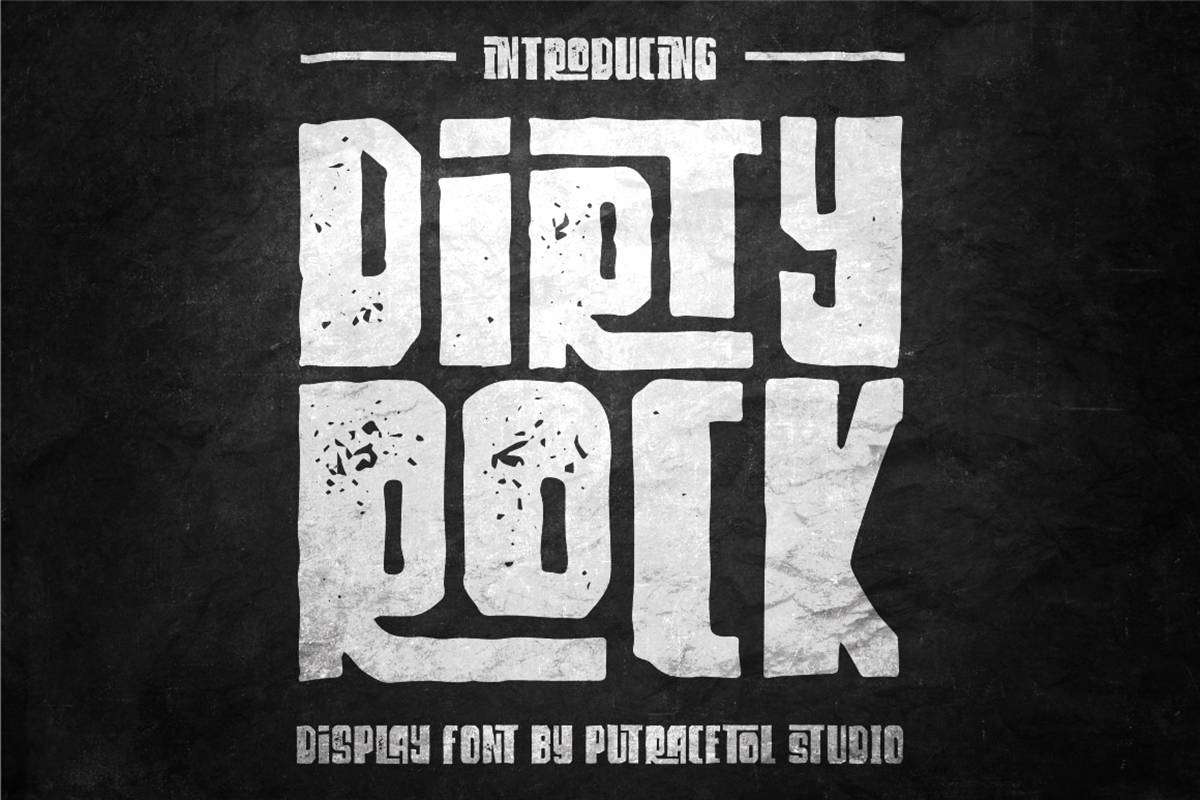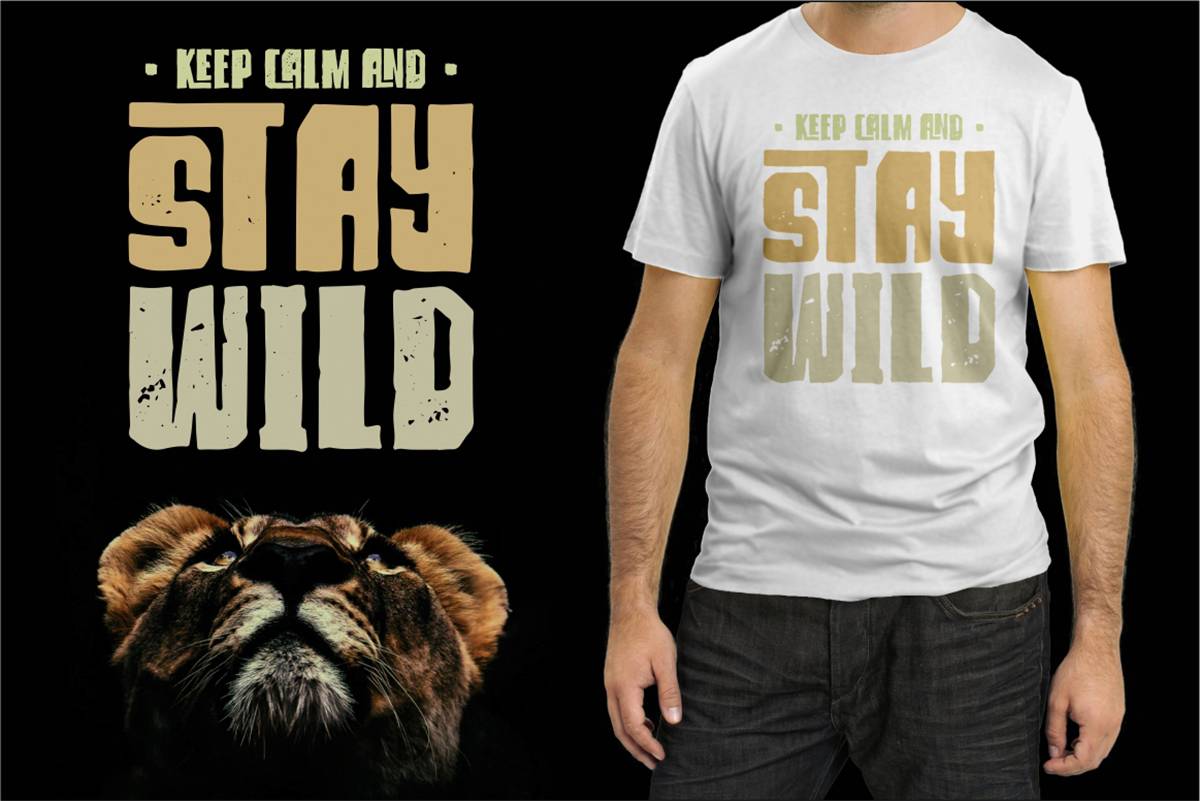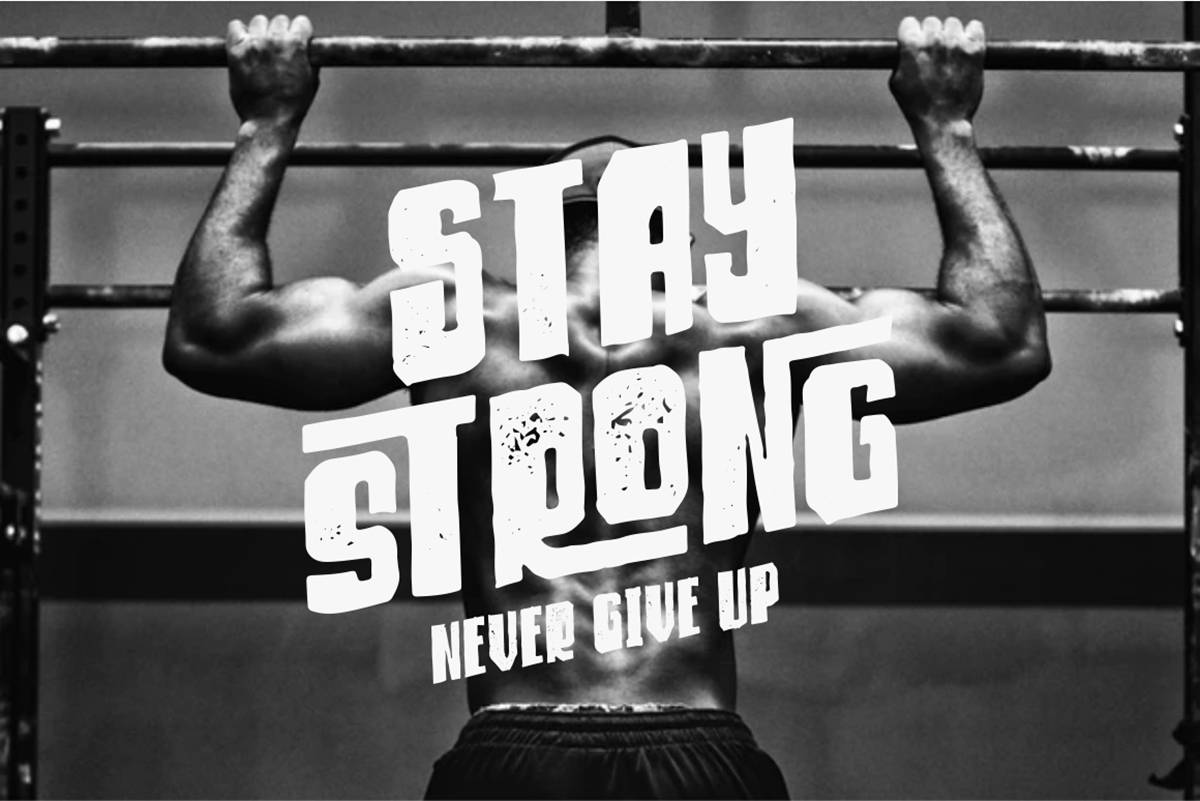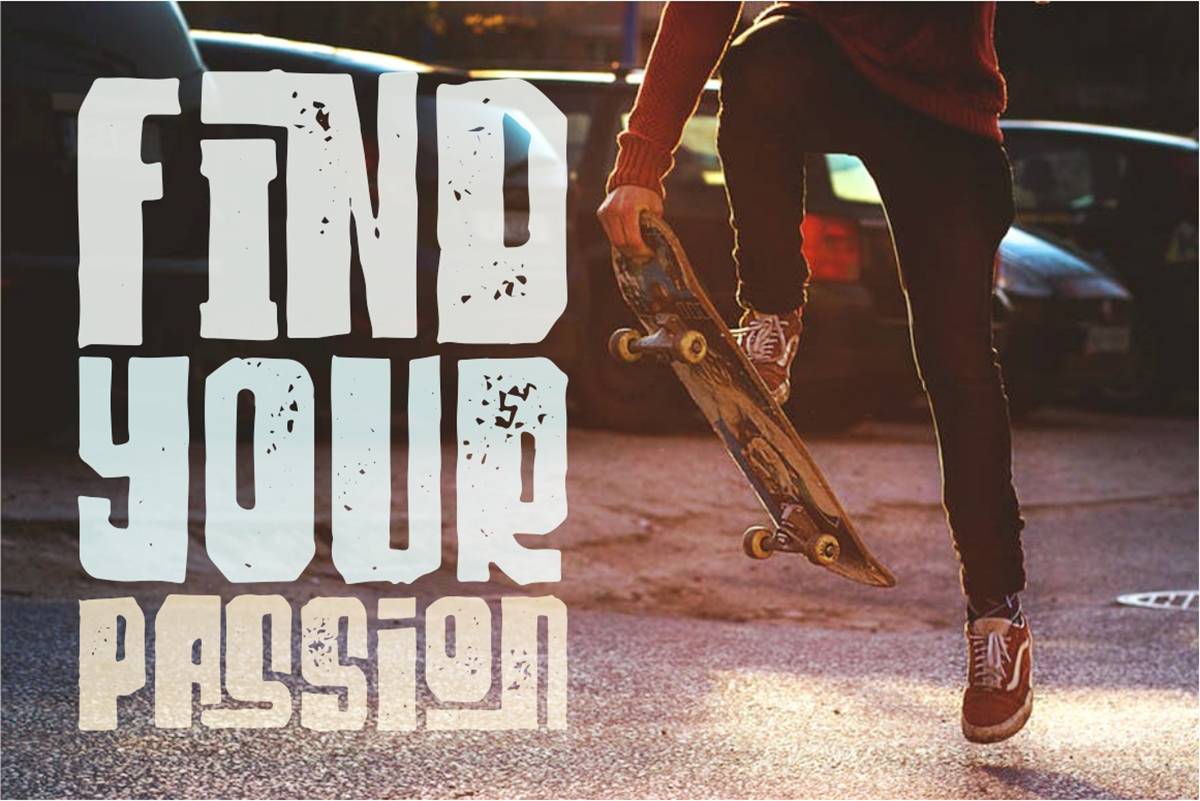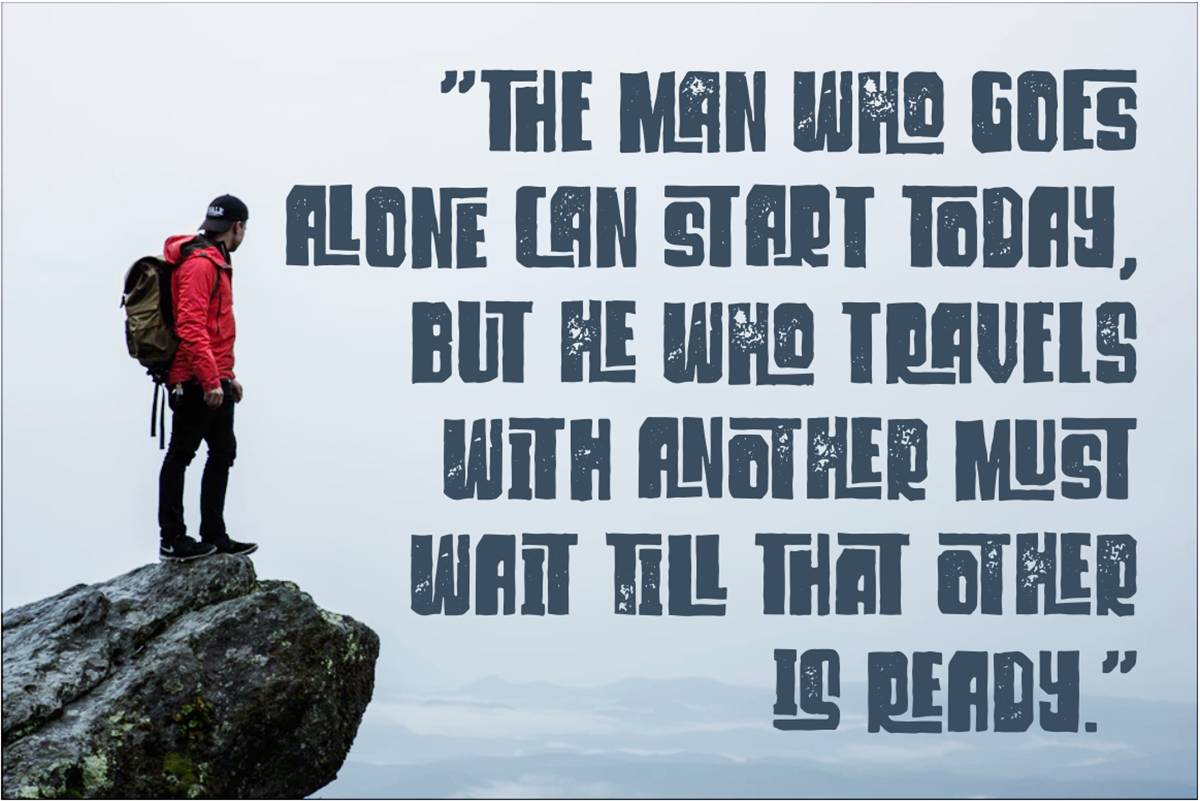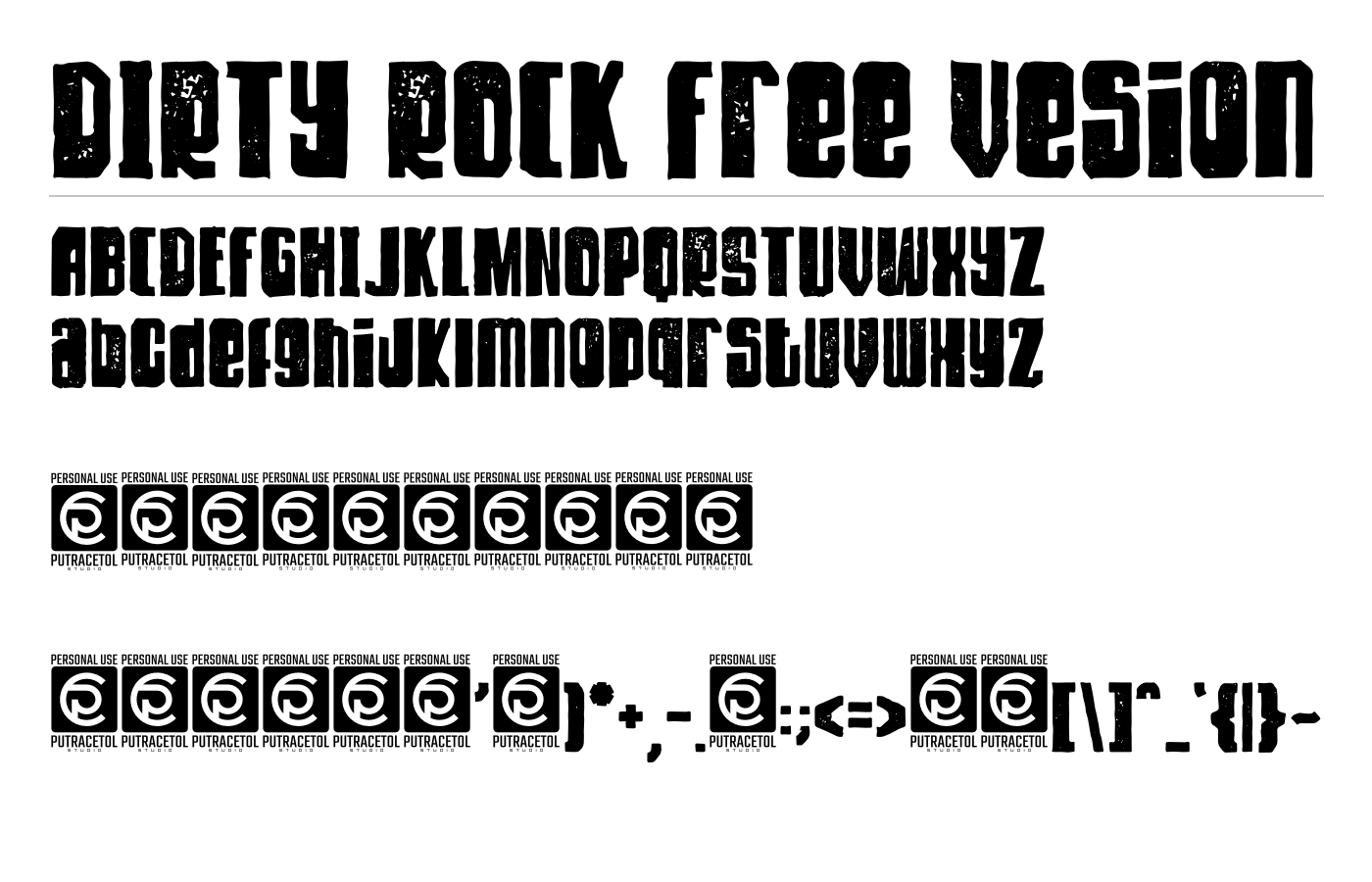
Dirty Rock is a bold, condensed sans-serif font with a rough, textured appearance that gives it a rebellious and edgy vibe. Its blocky letterforms with uneven edges and distressed details create a gritty, grunge style perfect for designs needing a rugged, energetic feel. This font works well for posters, album covers, and branding that aims to capture a raw, urban attitude.
Dirty Rock Font
About Dirty Rock Font
| Font family | Dirty Rock Font |